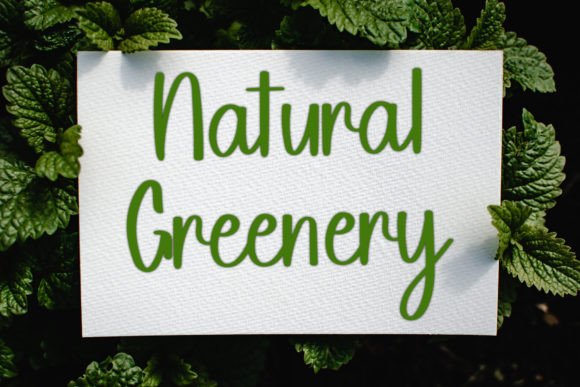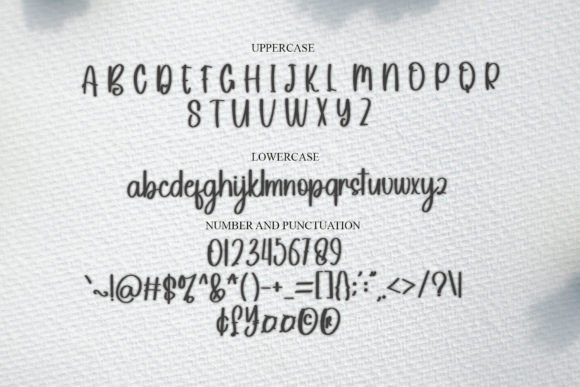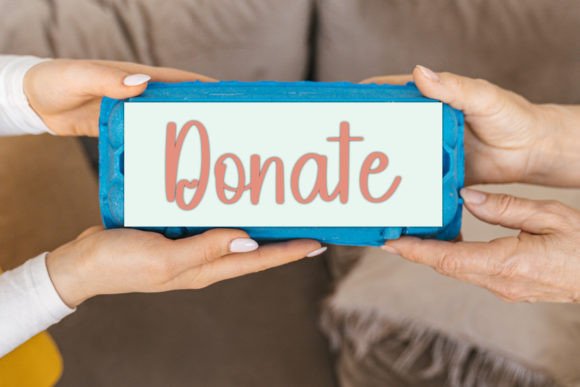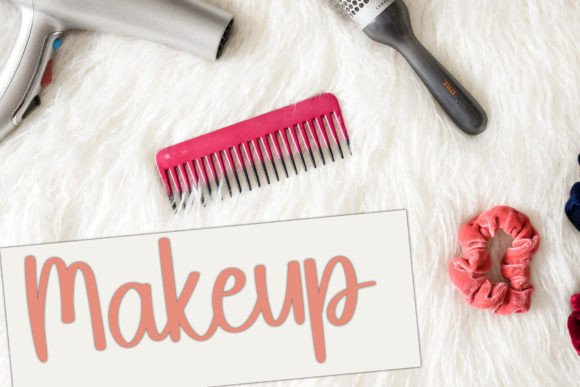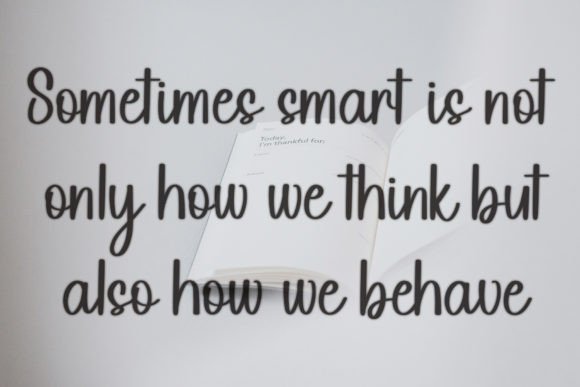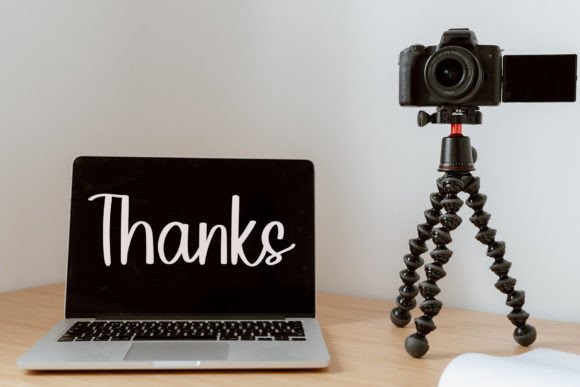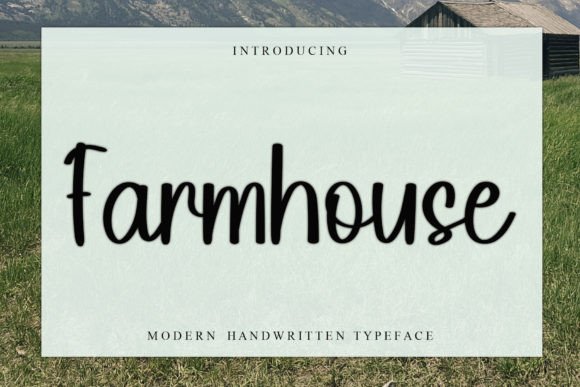
Discover the Charm of Farmhouse Font: Elevate Your Designs with a Cool, Simple, and Playful Handwritten Style
Are you a designer or crafter looking for a font that can add a touch of personality to your creative projects? Look no further than the Farmhouse Font! This cool, simple, and playful handwritten font is incredibly versatile and can elevate a wide range of designs to new heights. In this article, we’ll explore the features and benefits of Farmhouse Font, and show you how to make the most of this amazing font in your designs.
Farmhouse Font is a modern handwritten font that is characterized by its clean lines, simple shapes, and playful feel. It’s a font that is reminiscent of handwritten notes and letters, but with a modern twist that makes it perfect for a wide range of design applications. Whether you’re creating a logo, a poster, a website, or a craft project, Farmhouse Font is a great choice.
So, what makes Farmhouse Font so special? Here are some of its key features:
• Cool and Simple: Farmhouse Font has a calm and serene feel that makes it perfect for designs that need to convey a sense of simplicity and elegance.
• Playful and Whimsical: Despite its simplicity, Farmhouse Font has a playful and whimsical feel that makes it perfect for designs that need to add a touch of personality.
• Handwritten Style: Farmhouse Font is a handwritten font that is designed to look like it was written with a pen or pencil. This gives it a personal and authentic feel that is hard to replicate with other fonts.
• Versatile: Farmhouse Font is incredibly versatile and can be used in a wide range of design applications, from logos and posters to websites and craft projects.
Benefits of Using Farmhouse Font
So, why should you choose Farmhouse Font for your designs? Here are some of the benefits of using this amazing font:
• Easily Readable: Farmhouse Font is designed to be easily readable, even at small sizes. This makes it perfect for designs that need to convey a lot of information.
• Highly Legible: Farmhouse Font is highly legible, even on digital screens. This makes it perfect for web design and digital applications.
• Unique and Memorable: Farmhouse Font has a unique and memorable feel that can help your designs stand out from the crowd.
• Easy to Pair: Farmhouse Font is easy to pair with other fonts, making it perfect for designs that need to combine multiple fonts.
How to Use Farmhouse Font in Your Designs
Now that we’ve explored the features and benefits of Farmhouse Font, let’s talk about how to use it in your designs. Here are some tips and ideas to get you started:
• Logos and Branding: Farmhouse Font is perfect for logos and branding projects that need to convey a sense of simplicity and elegance.
• Posters and Flyers: Farmhouse Font is great for posters and flyers that need to grab attention and convey a message.
• Web Design: Farmhouse Font is perfect for web design projects that need to add a touch of personality and whimsy.
• Craft Projects: Farmhouse Font is great for craft projects, such as handmade cards, invitations, and scrapbooking.
In conclusion, Farmhouse Font is a cool, simple, and playful handwritten font that is perfect for designers and crafters looking to add a touch of personality to their creative projects. With its clean lines, simple shapes, and playful feel, Farmhouse Font is incredibly versatile and can elevate a wide range of designs to new heights. Whether you’re creating a logo, a poster, a website, or a craft project, Farmhouse Font is a great choice. So why not give it a try and see how it can bring your designs to life?
Farmhouse Font is a font that can add a touch of charm and personality to any design. Its unique and memorable feel makes it perfect for designs that need to stand out from the crowd. With its ease of use and versatility, Farmhouse Font is a must-have font for any designer or crafter looking to take their designs to the next level.
So, add Farmhouse Font to your favorite creative ideas and notice how it makes them come alive! With its cool, simple, and playful feel, Farmhouse Font is the perfect choice for any design project that needs a touch of personality and whimsy.